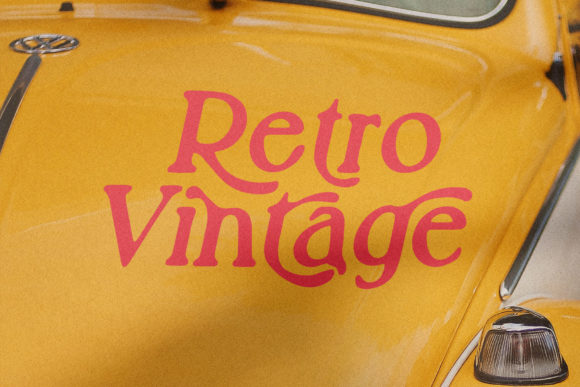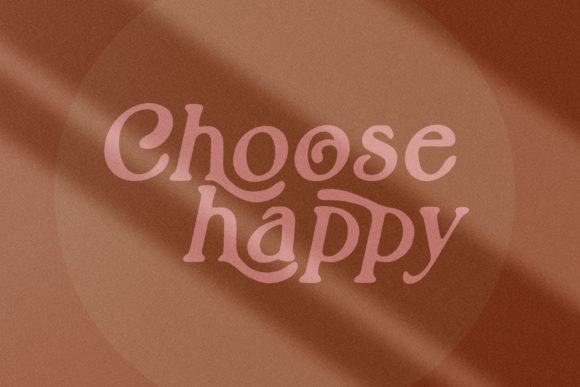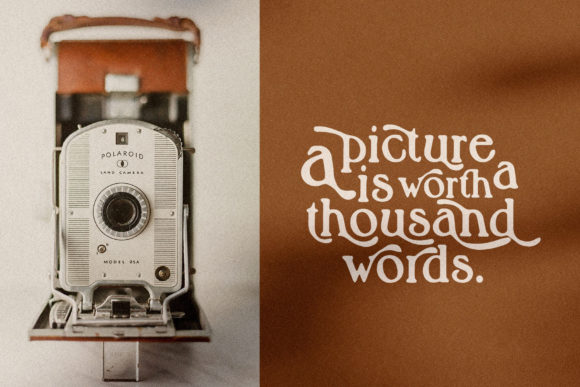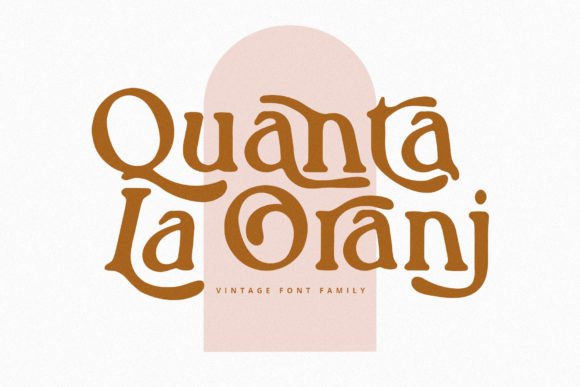
Introduction to Quanta La Oranj Font
Quanta La Oranj is a genuine vintage styled serif font charged with alternates and ligatures that makes for stunning logos, quotes, wedding invites, blog posts, Instagram, and more.
Key Features of Quanta La Oranj Font